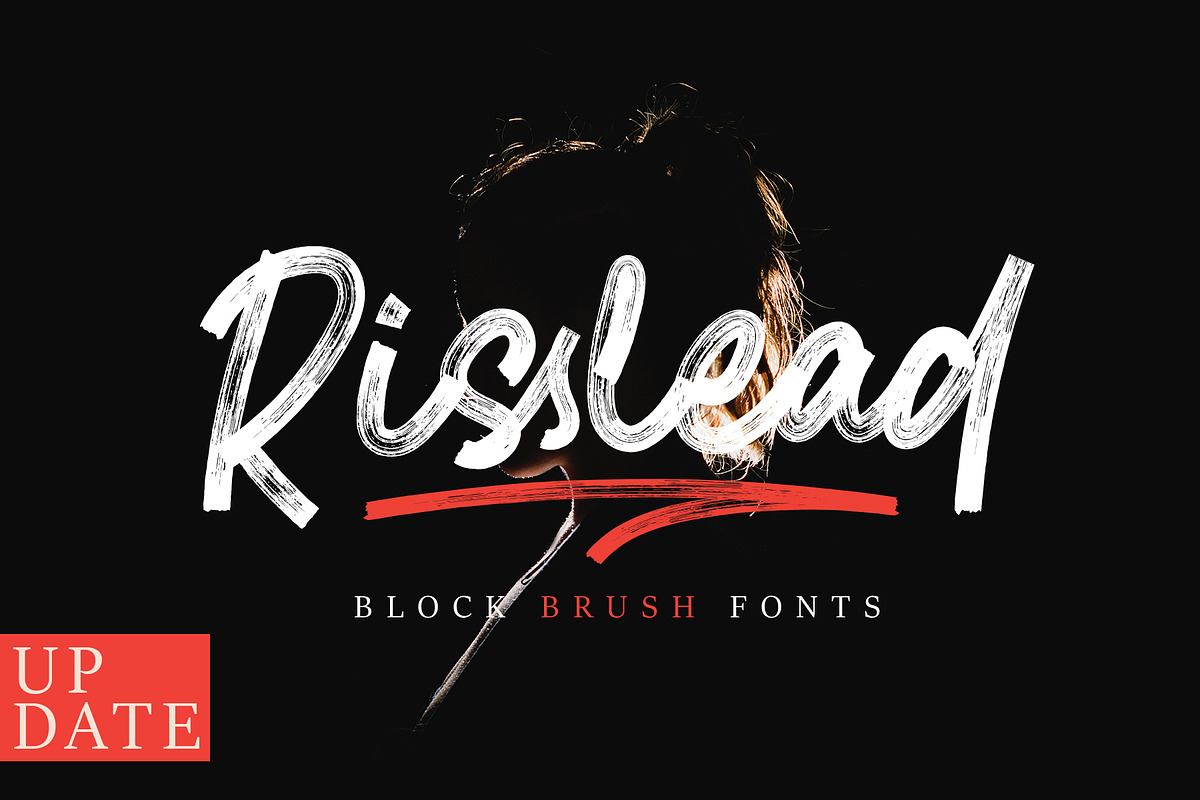
Unleash raw energy and bold creativity with the Risslead | Block Brush Fonts Free Download — a dynamic, hand-painted typeface that’s made to stand out. With its thick brush strokes and rugged edges, this font is ideal for poster designs, streetwear branding, music covers, extreme sports graphics, and high-impact social media visuals.
Risslead combines a rebellious street-art vibe with bold legibility, making it perfect for headlines that demand attention. Whether you're designing for an edgy brand, a band’s album cover, or a campaign that’s meant to break the mold, this font brings noise and personality in every letter.